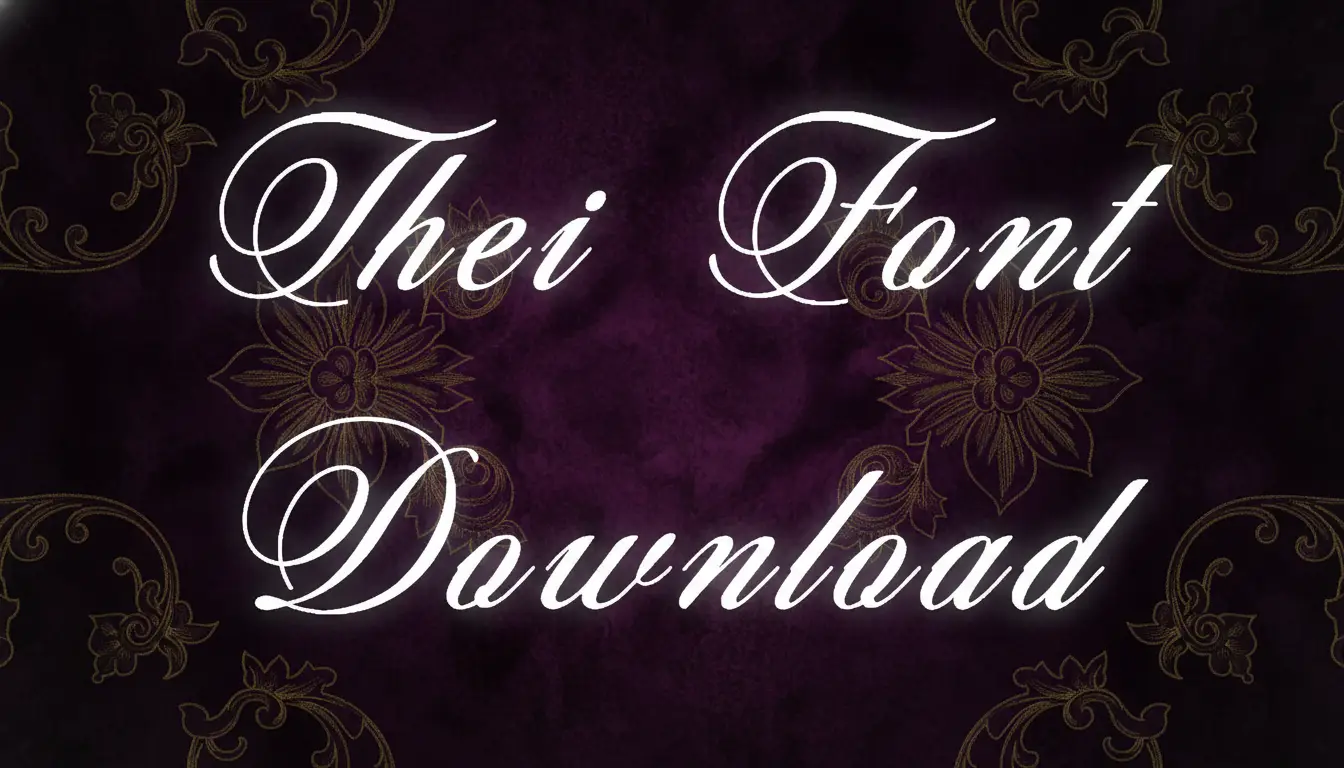
Thei Font
Thei is a script font made by Andrii Shevchyk. Its flowing, pen-made letters give names and short phrases a personal, polished look. You can download it for free and test it with your own words in the preview above.
What You Can Type With Thei
You get every letter from A to Z in both cases and all the numbers from 0 to 9, which means Thei can handle full sentences, dates and prices. Everyday marks like &, !, ? and @ are there too. Thanks to its accented letters, it also works for Spanish, French, German, Portuguese and Italian, not just English.
Where Thei Works Best
Thei is a natural fit for wedding invitations, logos and signature-style headings. Script fonts read best in short bursts, so keep it to names, titles and one-line quotes. Skip all caps: script capitals are drawn to start a word, not to fill one.
Does Thei support accented letters?
Yes. Thei includes the accented letters needed for Spanish, French, German, Portuguese and Italian, so it works for more than just English.